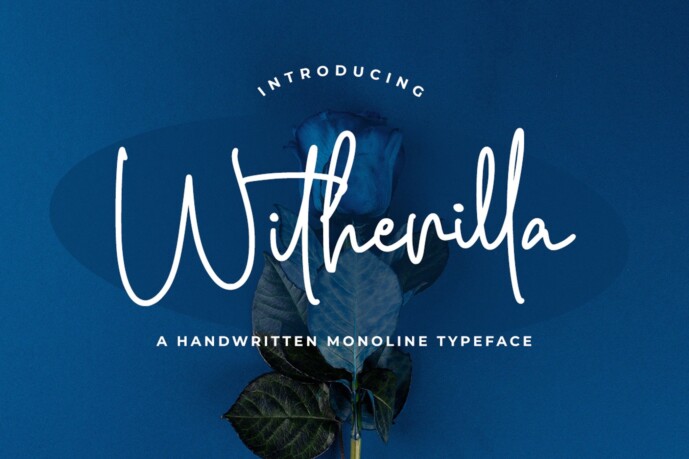
Witherilla Monoline Font
Witherilla is a beautiful light handwritten font with a unique feel and a stunning impact. It will add a luxury spark to any design project that you wish to create!
• Ligatures, Swash, Alternates